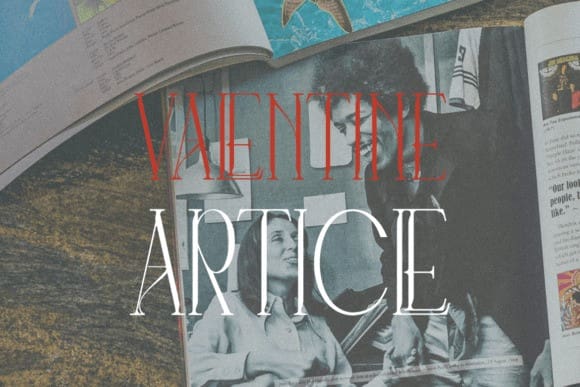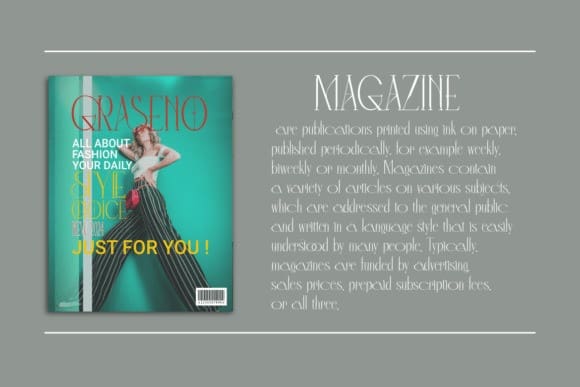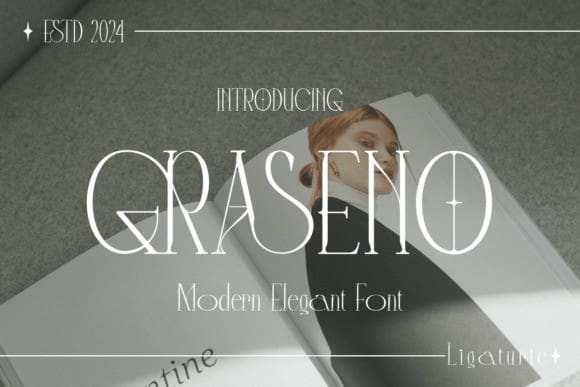
Graseno Font
Graseno Font is a modern and authentic font. Perfect for both the professional and branding needs of a product. This font is suitable for any branding project like quotes, logos, blog headers, posters, banding, letters, invitations, stationery, etc… Designed as a versatile and flexible that can be used on a range of projects and mediums.